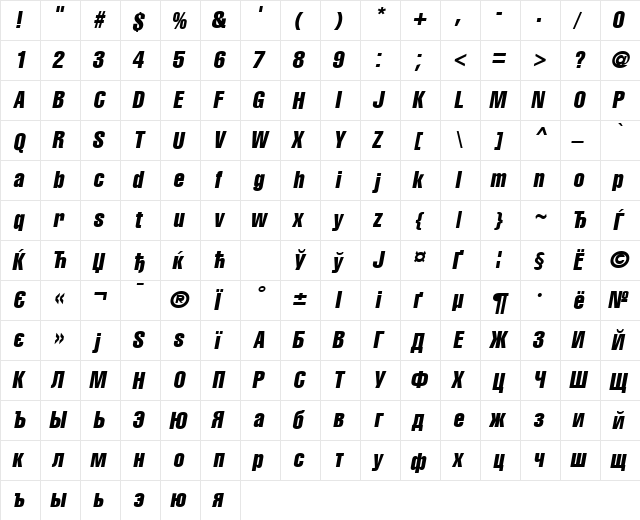
AGLettericaCompressed Oblique
Design Context for AGLettericaCompressed Typeface
AGLettericaCompressed takes a measured approach to typography — its balanced proportions and neutral character make it a reliable workhorse for both digital and print work. The slanted form adds forward momentum and visual energy.